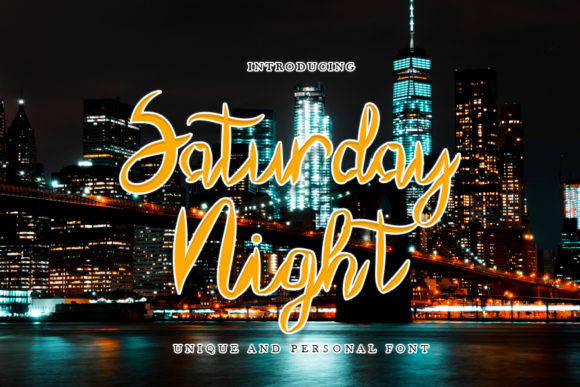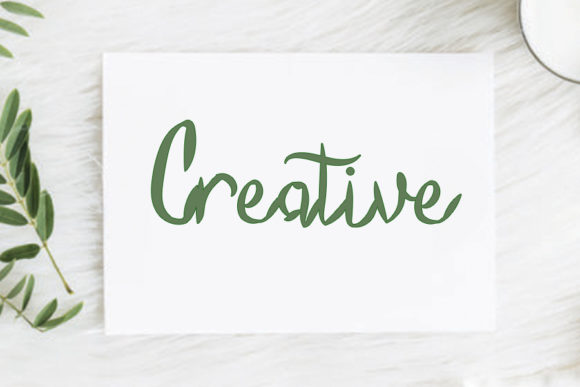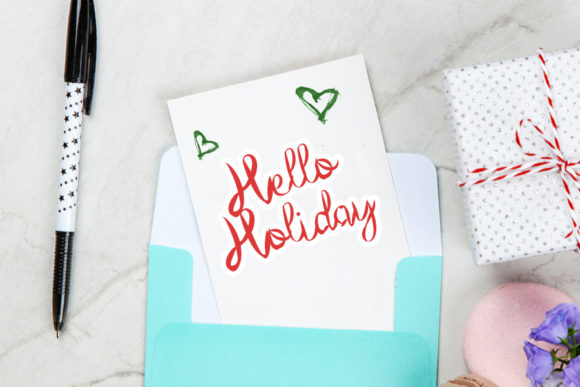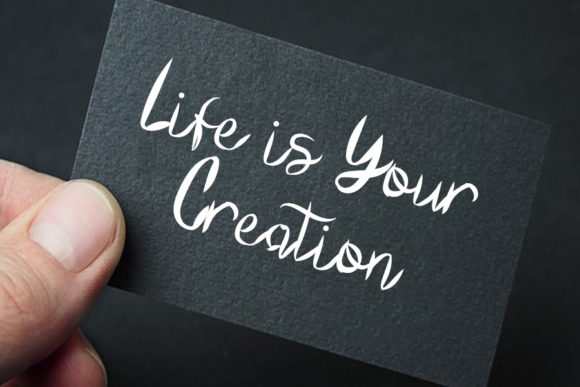
Saturday Night Font
About Saturday Night Font
Saturday Night is a fresh and neat handwritten font. It has a playfully nostalgic feel and delivers an incredible vintage aesthetic. Use it to add that special retro touch to any design idea you can think of!